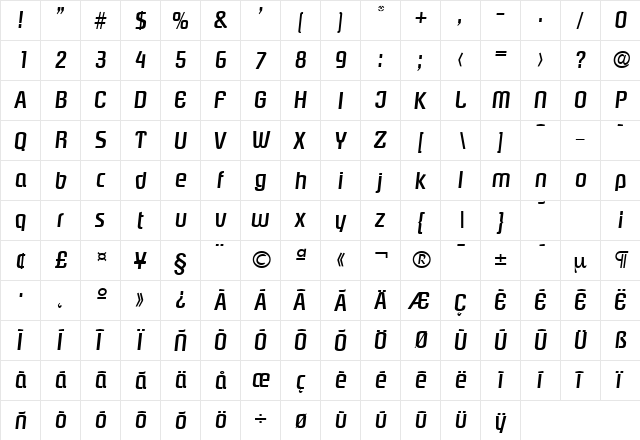
Pasadena-Serial-Medium RegularItalic
Design Context for Pasadena-Serial-Medium Typeface
Pasadena-Serial-Medium takes a measured approach to typography — its balanced proportions and neutral character make it a reliable workhorse for both digital and print work. The slanted form adds forward momentum and visual energy.